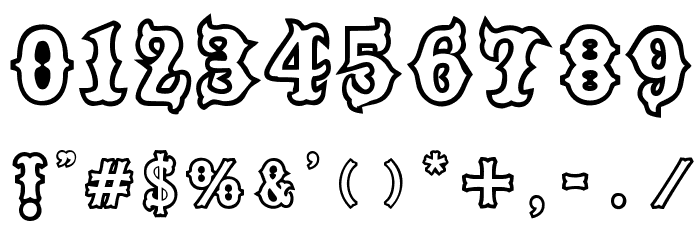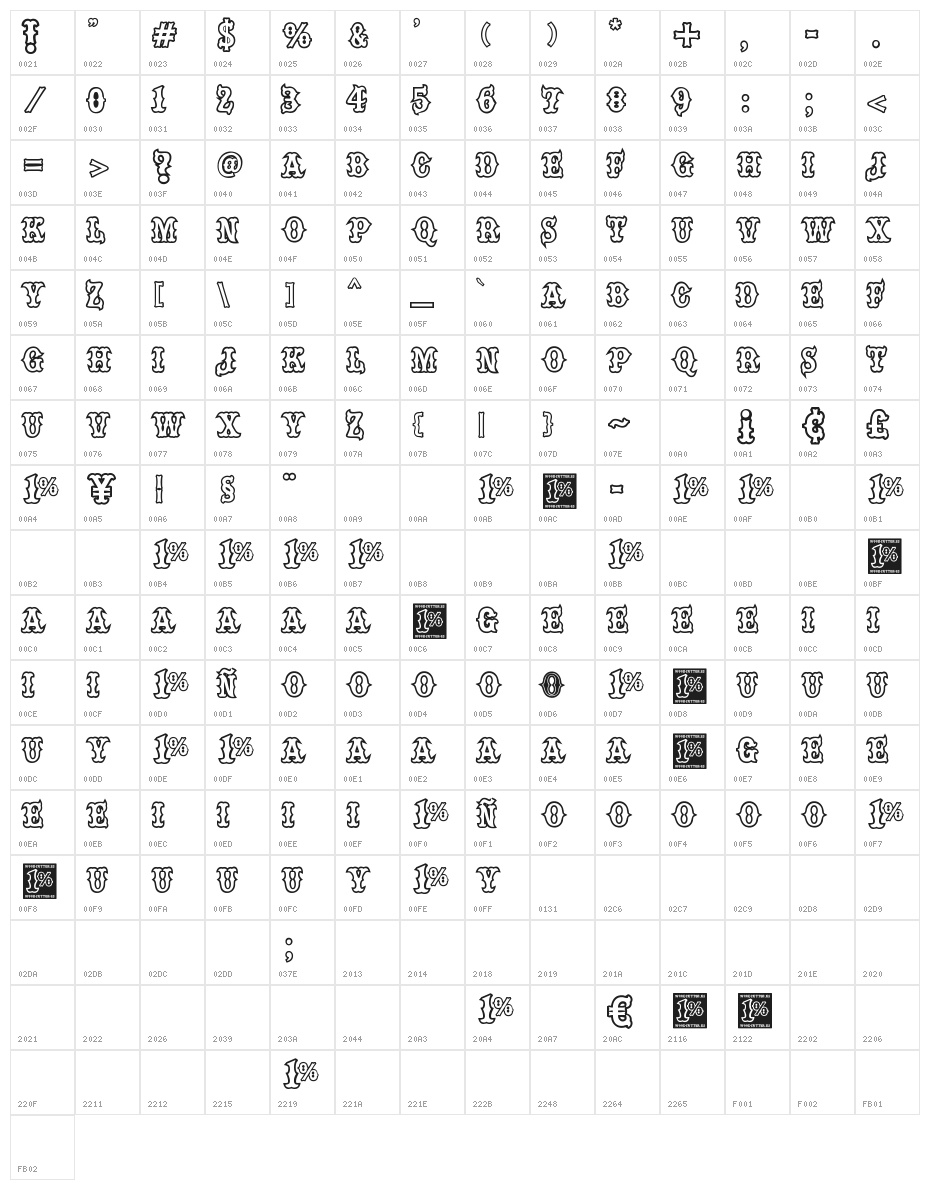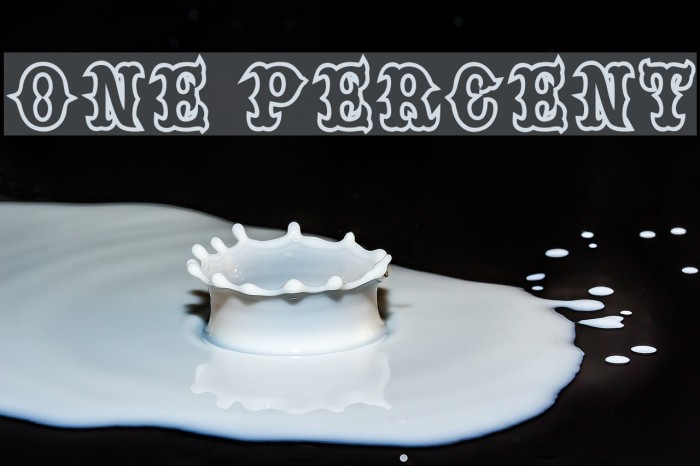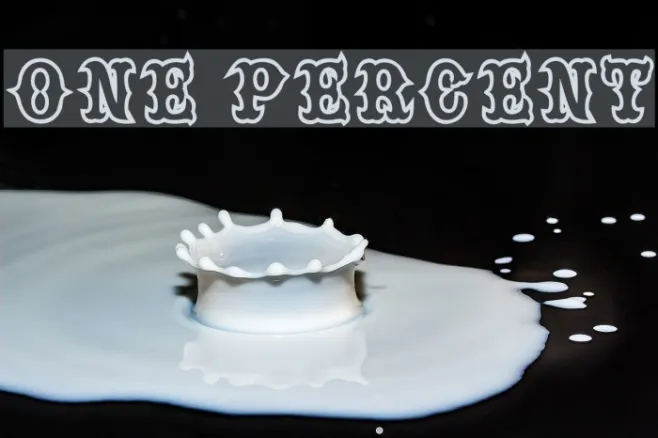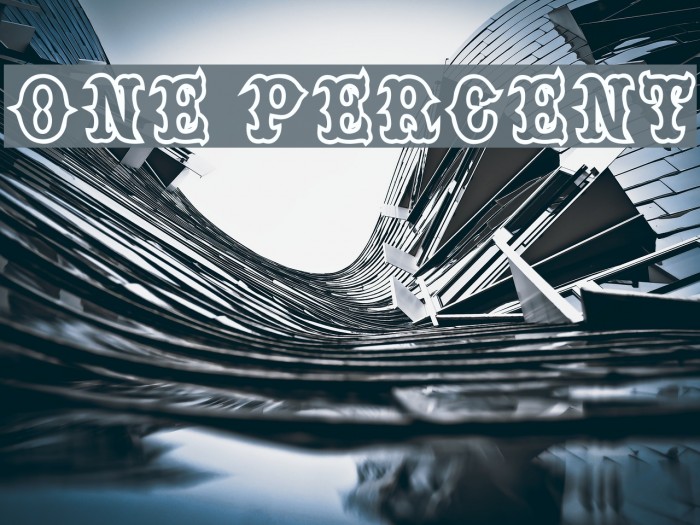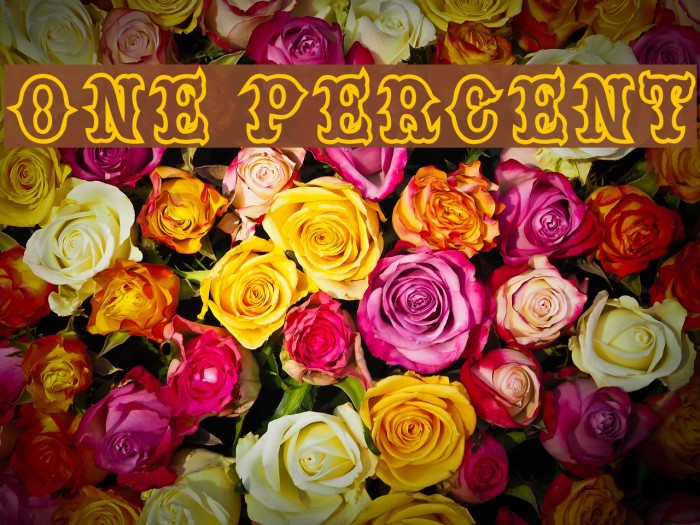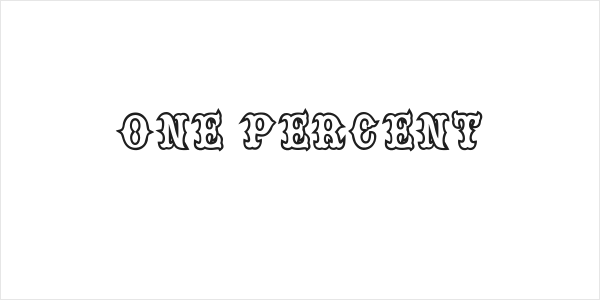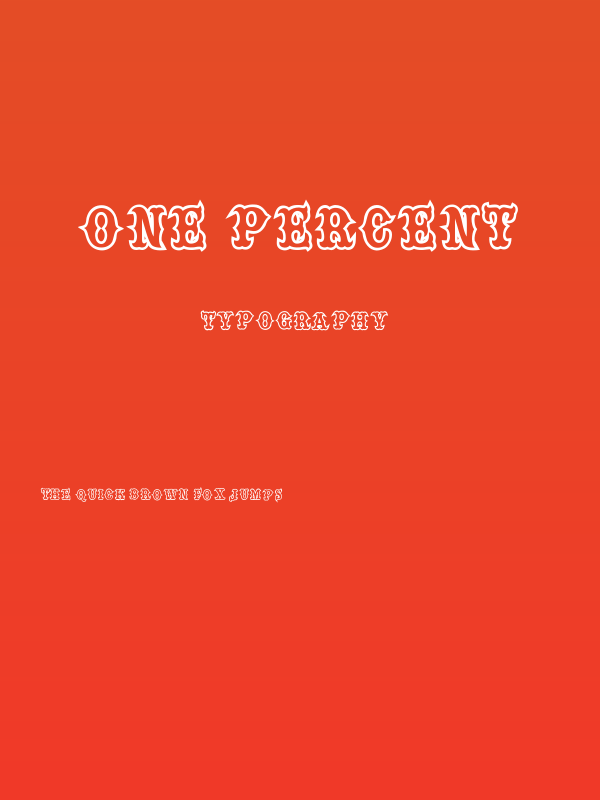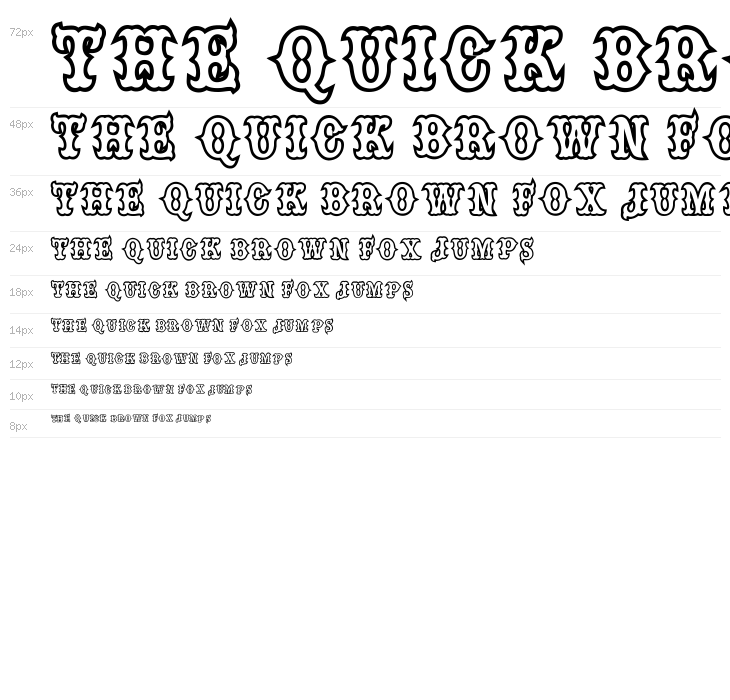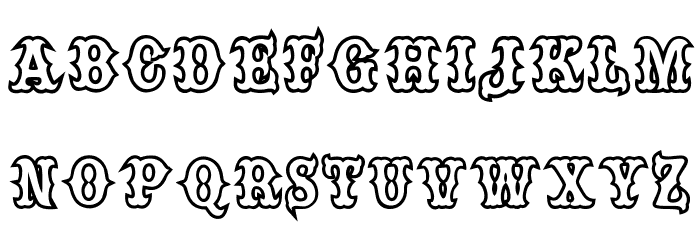
one percent Font
one percent Description
This font features a bold and decorative style with intricate, ornate details that give it a vintage and playful appearance. The characters are outlined with a shadow effect, enhancing their three-dimensional look. Each letter and number is uniquely crafted with flourishes and embellishments, making it stand out for creative and artistic projects. The font maintains a consistent weight throughout, with medium contrast in the stroke thickness. Its distinctive style is reminiscent of old circus or carnival posters, adding a touch of nostalgia and whimsy.
| Overall Style | Vintage, Decorative |
| Proposed Projects | Ideal for posters, event invitations, branding for vintage-themed products, or any project requiring a bold, decorative typeface. |